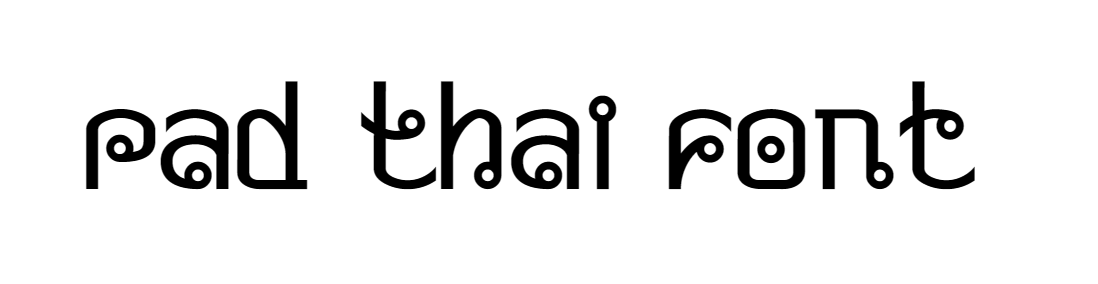
Pad Thai is a whimsical, “foreign-look” simulation display typeface designed by Harold Lohner and published through Harold’s Fonts. Released in 2006, it functions as a stylistic Latin alphabet that replicates the visual rhythm and character architecture of authentic Thai script (specifically modeling the traditional Ayuthaya font)
Pad Thai
Pad Thai is a foreign look font (2006).